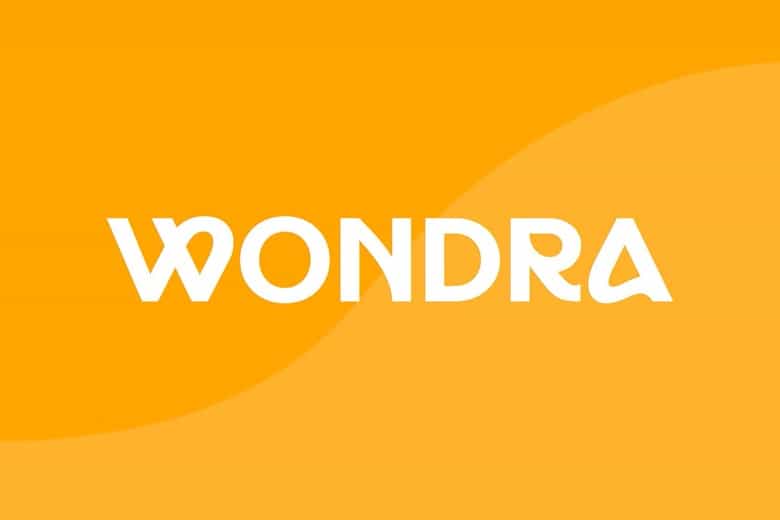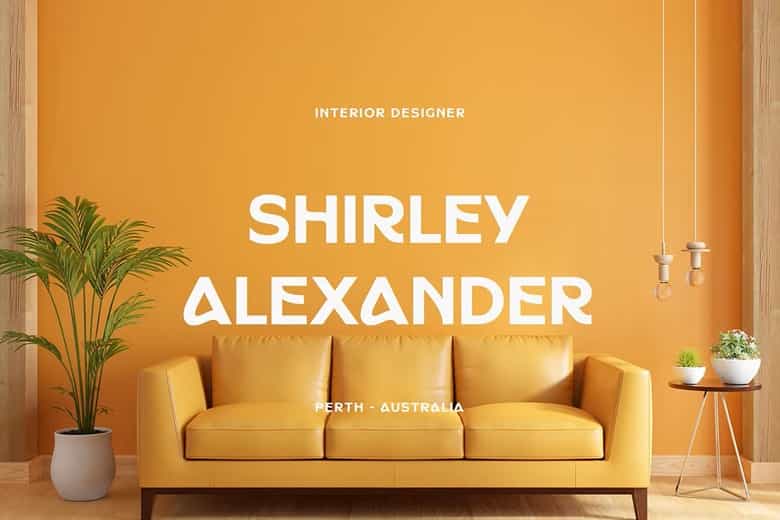
Wondra is an elegant and modern sans serif font. Wondra is a simple font, best used as a display for headings, logos, branding, magazines, product packaging and invitations.